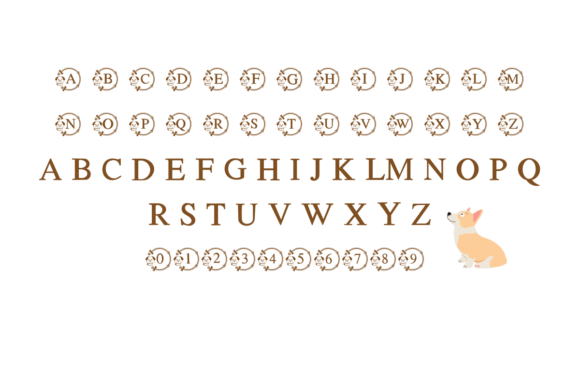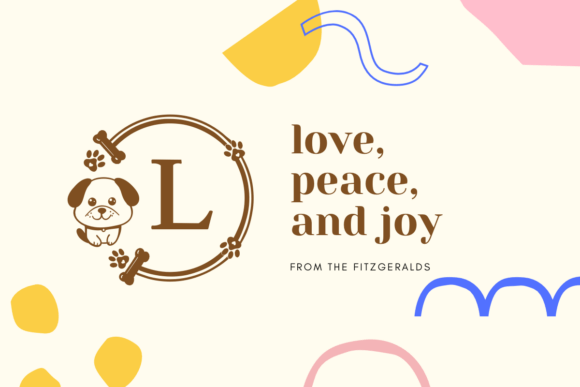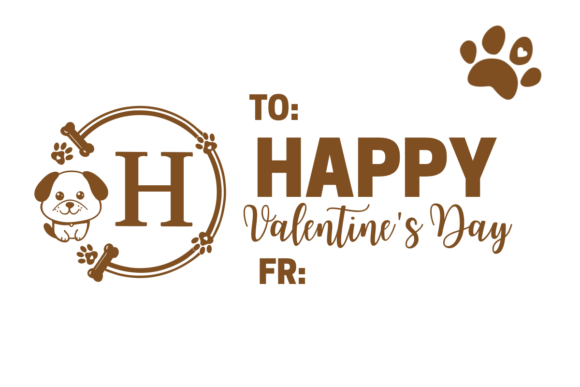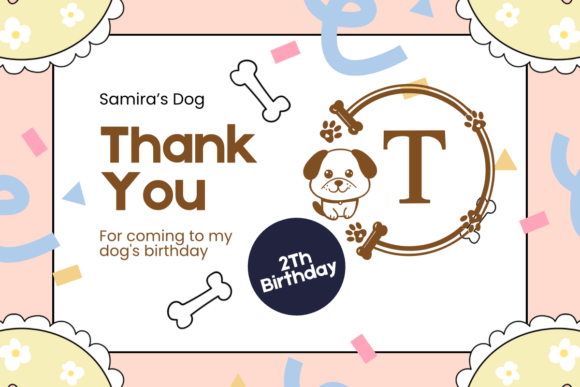
Introduction to Love Dog Monogram Font Font
Fonts play a crucial role in design, and the Love Dog Monogram Font font is a typeface that brings both character and versatility to any project. Whether you’re working on a branding project, a website, or a print design, the Love Dog Monogram Font font offers a unique style that can elevate your work.
Love Dog Monogram is a Decorative font.
You can use it for taking notes, writing a diary, or making greeting cards However, you can still use it for other designs, such as banners, content, mugs, cards, shirts, stationery, social media posts, and more.
Key Features of Love Dog Monogram Font Font
Why Choose Love Dog Monogram Font Font?
The Love Dog Monogram Font font is more than just a typeface – it’s a design tool that helps you communicate your message with style and clarity. Its unique character set and versatile design make it suitable for a wide range of applications, from elegant invitations to bold headlines.
With its carefully crafted letterforms and balanced proportions, the Love Dog Monogram Font font ensures readability and visual appeal across all mediums.
What makes Love Dog Monogram Font font special?
The Love Dog Monogram Font font stands out with its unique design, exceptional readability, and versatility across various design applications.